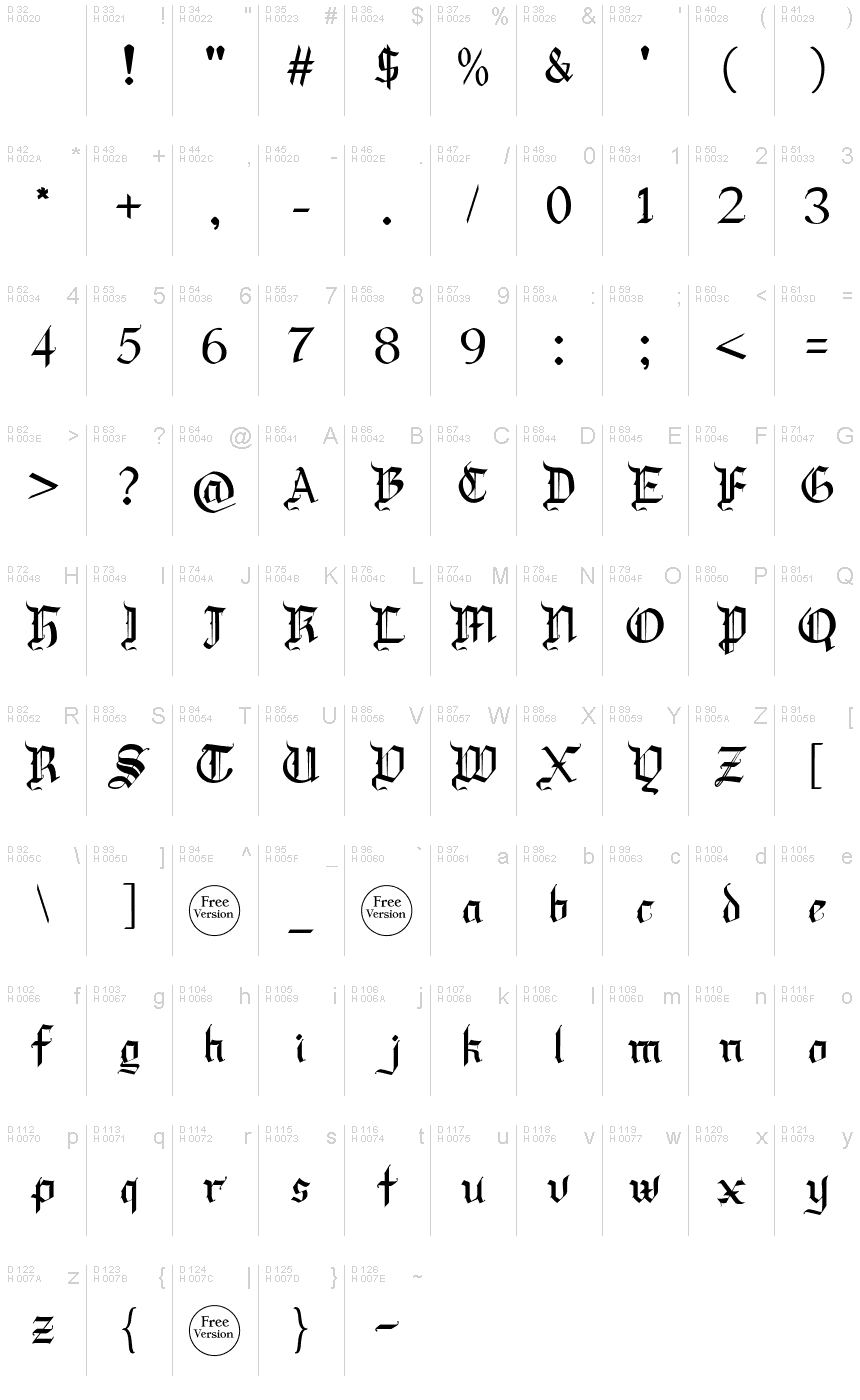
Draculie Free Trial
Draculie is a gothic blackletter font that is a great option for a wide range of highly stylish yet moody and darkly themed projects. This torn/ripped styled blackletter font is a great way to root your designs thematically. Suitable for tattoos clothing, labels and packaging, branding, or any Gothic-themed projects!